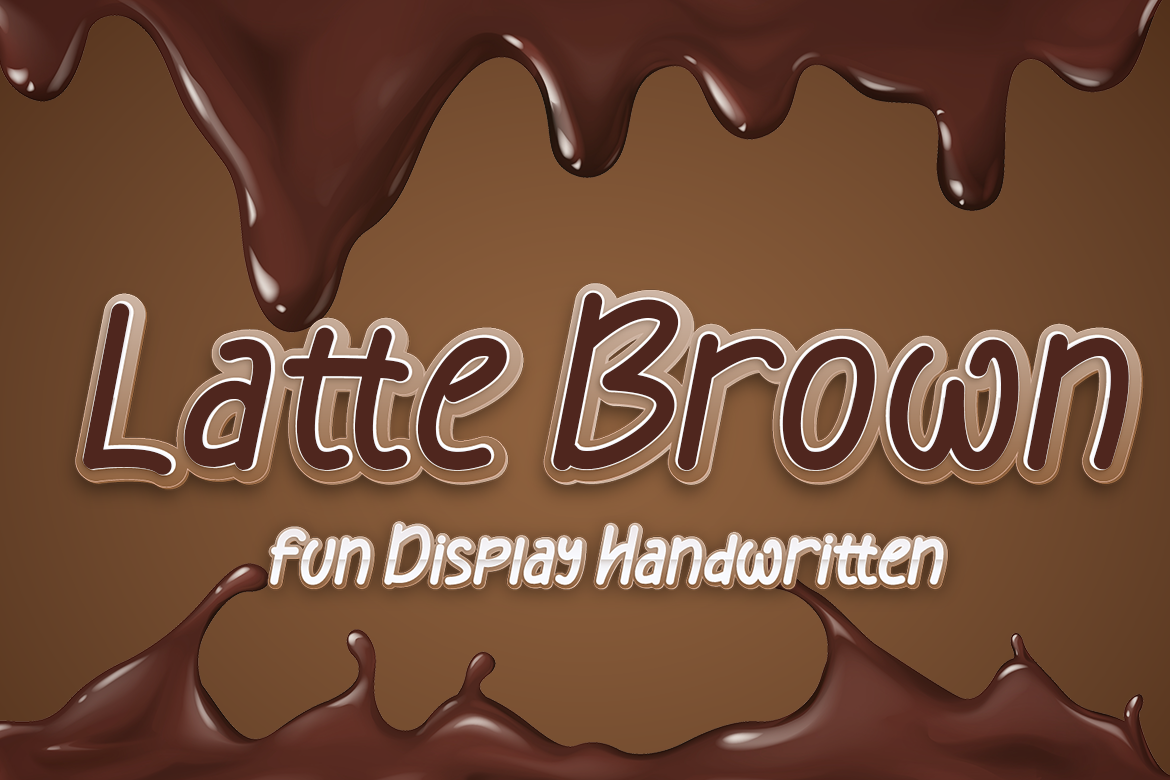
Latte Brown Display Font Product
Latte Brown is a casual script font. Its natural and unique style makes it incredibly fitting to a large pool of designs. The only limit is your imagination!